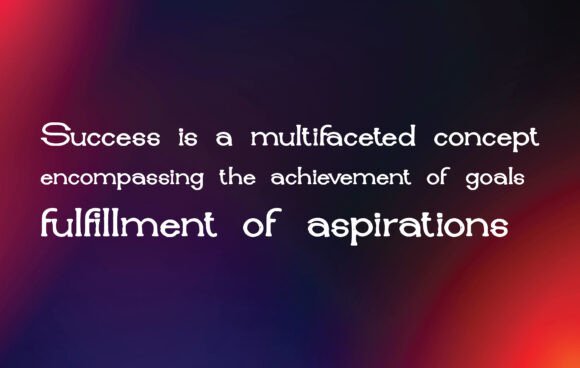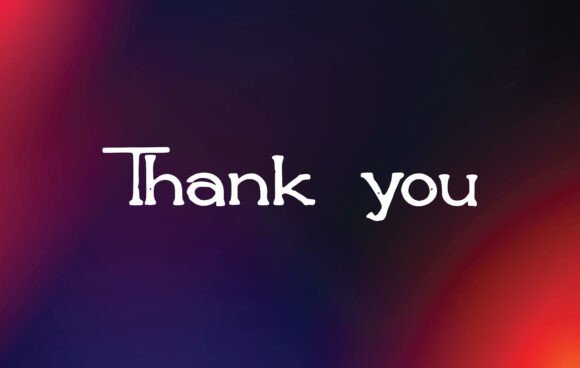
The Boar Font: A Game-Changer for Your Creative Projects
Have you ever been in the middle of a design project, pouring your heart and soul into it, only to get stuck on one thing: the font? I certainly have. It was a typical Wednesday evening when I found myself scrolling through font after font, trying to find the perfect one for a client’s branding project. The client wanted something that was stylish, versatile, and easy to read. And then, I stumbled upon the Boar Font. It was love at first sight! ✨
I’ve had the chance to work with the Boar Font on several projects, and here’s my honest review:
• ✅ Easy to Read: The Boar Font is incredibly legible, making it perfect for both titles and body text.
• ✅ Versatile: This font works beautifully for a wide range of projects, from magazine headlines to social media posts, t-shirts, branding materials, wedding invitations, and greeting cards.
• ✅ Stylish: The Boar Font has a unique style that adds a touch of sophistication to any design.
• ✅ OpenType Features: This font comes with a range of OpenType features, including stylistic alternates and glyphs, which can be used to add an extra layer of creativity to your designs.
While the Boar Font is an excellent choice for many projects, there are a few things to keep in mind:
• ⚠️ Limited Use on Small Sizes: While the font is generally easy to read, it may not be the best choice for very small font sizes (below 10pt).
• 🤔 Pairing with Other Fonts: As with any font, pairing the Boar Font with other fonts can be a bit tricky. You may need to experiment with different combinations to find the perfect match.
The Story Behind the Boar Font
The Boar Font was designed by a team of typographers who wanted to create a font that was both stylish and versatile. The font was inspired by classic serif fonts, but with a modern twist. The designers wanted to create a font that would be easy to read and work well for a wide range of projects, from digital designs to print materials.
Q: What is the Boar Font?
The Boar Font is a stylish and versatile font that’s perfect for a wide range of creative projects.
Q: Is the Boar Font easy to read?
Yes, the Boar Font is incredibly legible and works well for both titles and body text.
Q: Does the Boar Font come with OpenType features?
Yes, the Boar Font comes with a range of OpenType features, including stylistic alternates and glyphs.